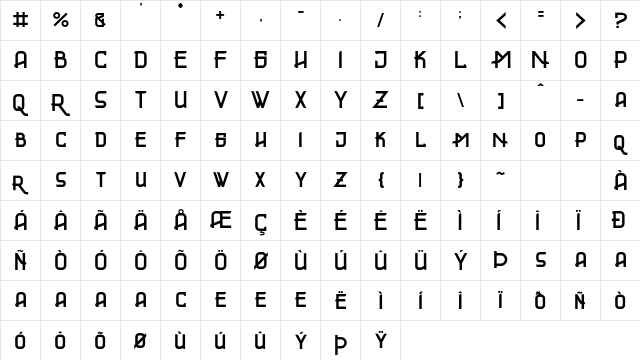
GLADIATOR Regular
| Designer | Fandi Kurniawan |
Design Context for GLADIATOR Typeface
GLADIATOR is a composed and adaptable typeface that performs quietly and consistently across a wide range of design contexts.